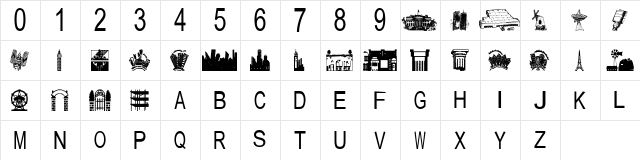
tungfont building 1 Regular
Design Context for tungfont building 1 Typeface
tungfont building 1 is a composed and adaptable typeface that performs quietly and consistently across a wide range of design contexts.